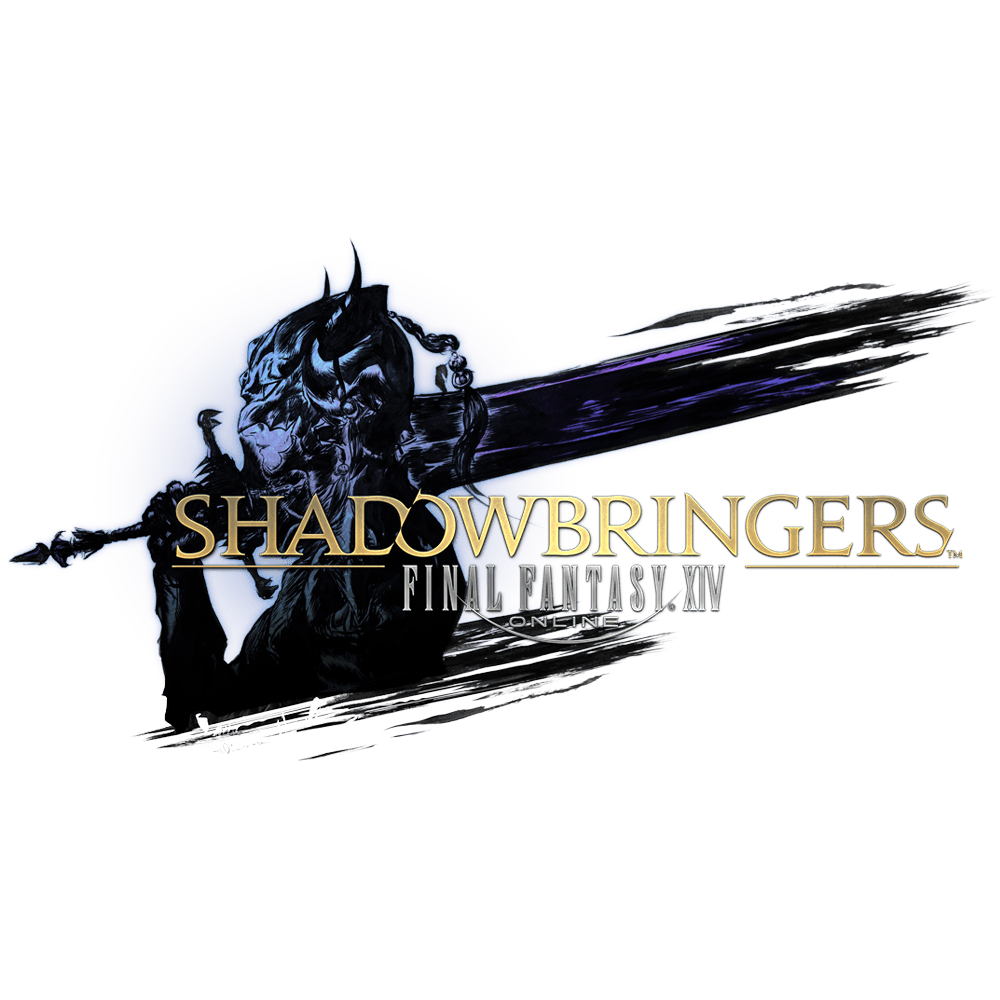
Final Fantasy XIV Font
Fonts in UseFinal Fantasy XIV is a massively multiplayer online role-playing game (MMORPG) set in the fantasy world of Eorzea. The game was developed and published by Square Enix.
The lettering for "Shadowbringers" in Final Fantasy XIV uses a customized version of Canada Type's Jupiter Bold font, while the "Final Fantasy XIV" text is styled in a free condensed sans serif font called OPTI Enge Etienne, which is available for free download here at FontGet.